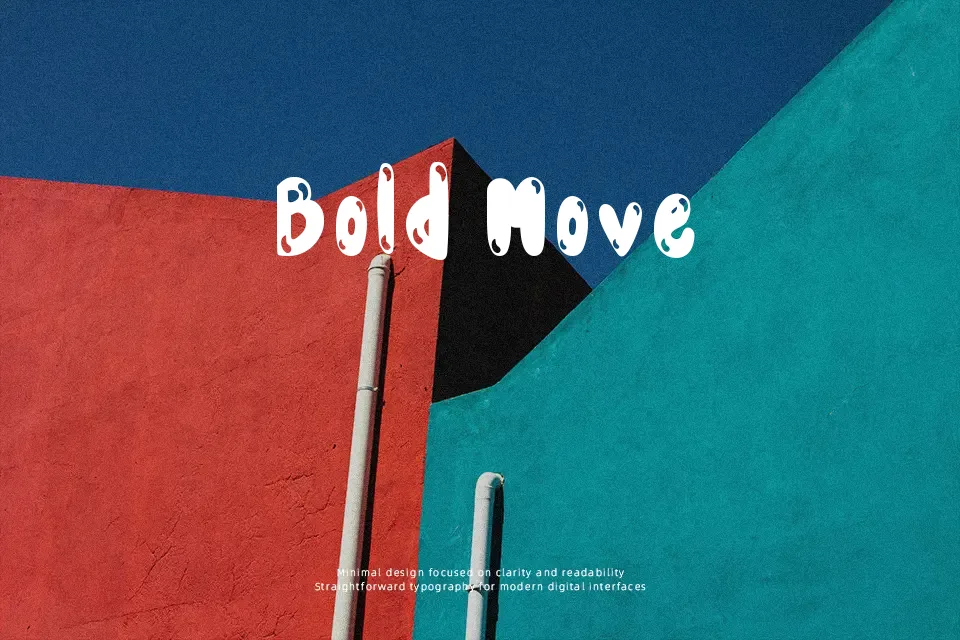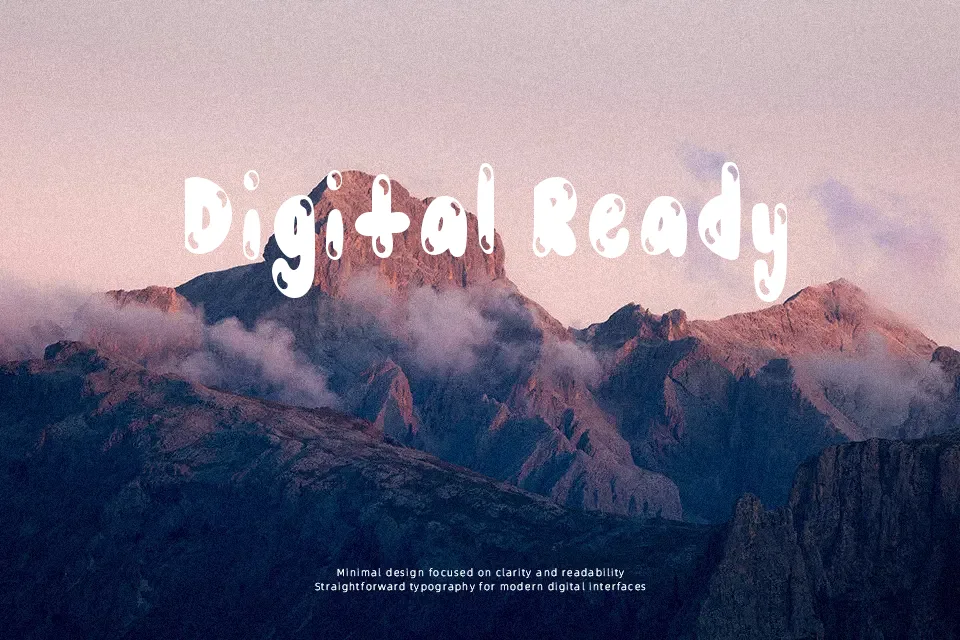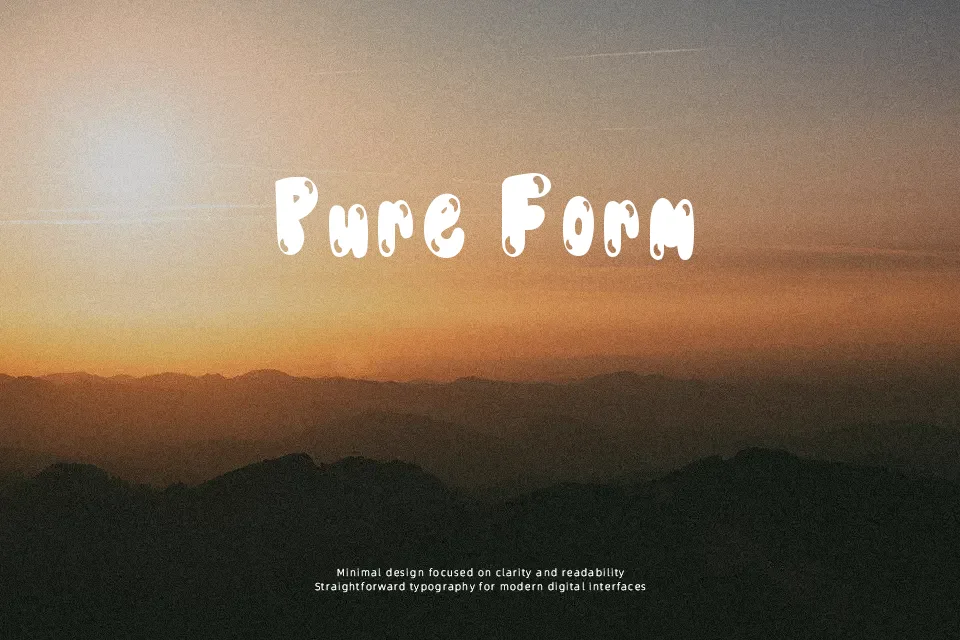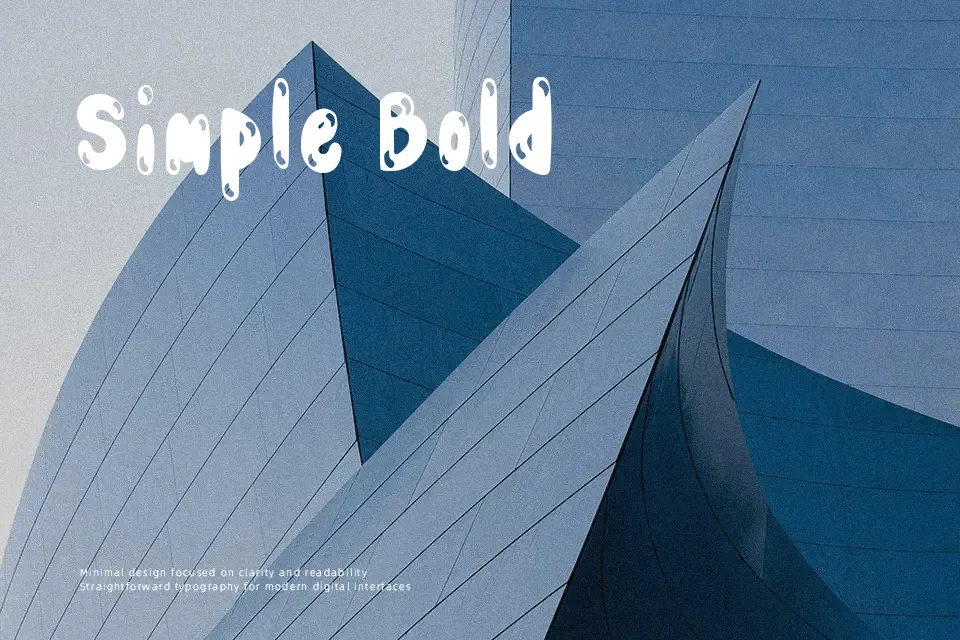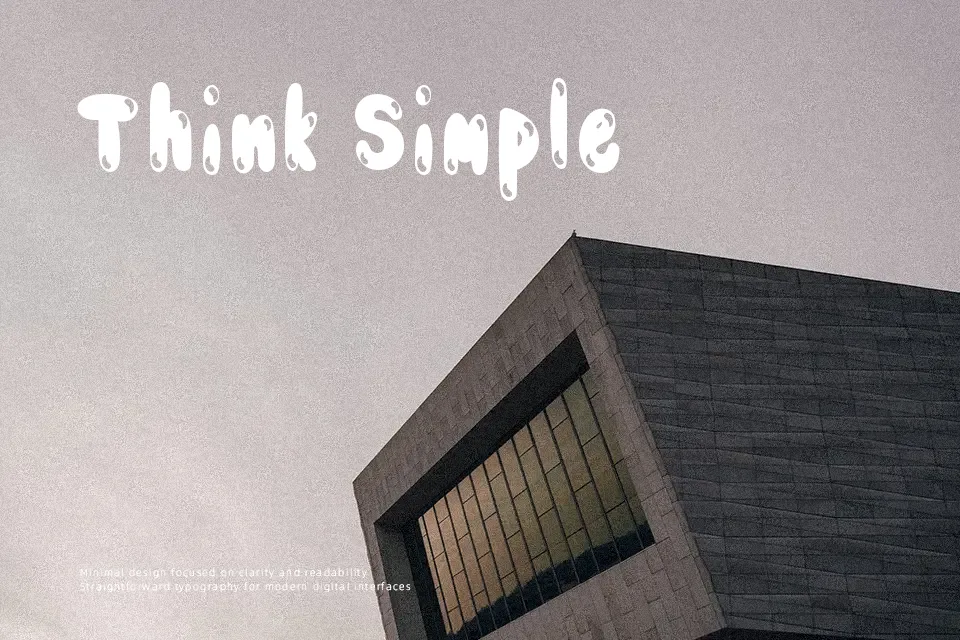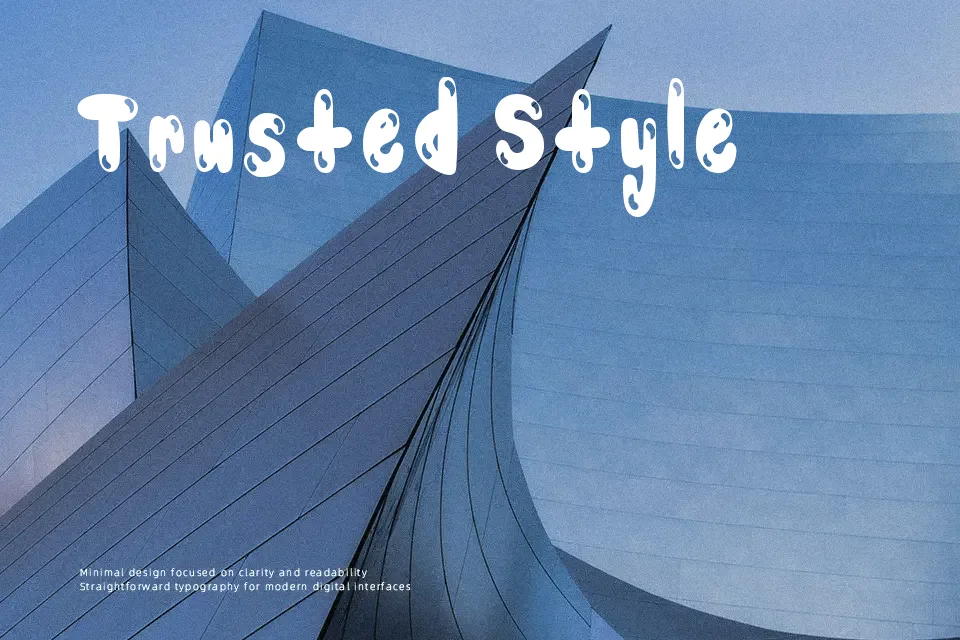
Bubblez Font
Bubblez Font is a chunky, rounded display face with swollen strokes, loose counters, and airy spacing that makes every word feel light and buoyant. The letters sit slightly irregular, adding a hand-drawn charm that leans casual and friendly rather than polished or corporate. It works nicely for children’s branding, slime or candy packaging, event flyers, and YouTube thumbnails where you want the lettering to read as soft and approachable at a glance. In longer paragraphs or serious editorial layouts, the exaggerated shapes can become tiring and undermine a professional tone, so it suits short headlines and playful branding much better than dense text blocks. Compared with clean rounded sans fonts, Bubblez feels more cartoonish and decorative, so it’s something you reach for when you want character first and precision second.
kids event posters
toy or candy packaging
playful social media graphics
bubble or slime themed logos
long body text or articles
formal business branding
small UI labels or menus
serious editorial layouts
Perfect for kids, logo, and packaging, with a creative and cartoon style.